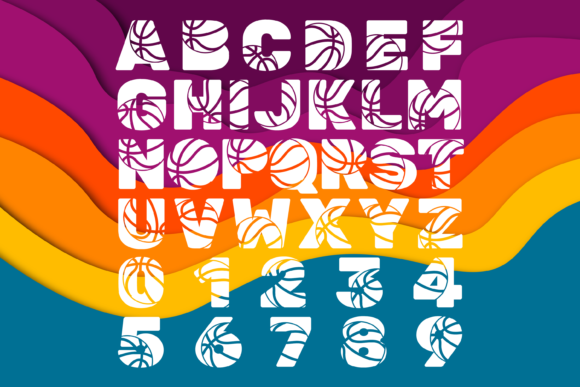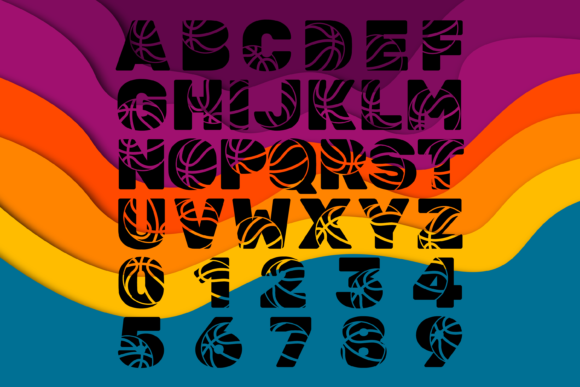
Discover the Power of Alley Oop Font: Elevate Your Sports Designs
Are you a designer or crafter looking for a font that can instantly elevate your sports-related design ideas? Look no further than the Alley Oop font. This incredibly cool font is simple yet packs a strong visual punch, making it the perfect choice for anyone looking to create eye-catching and engaging designs.
The Unique Charm of Alley Oop Font
The Alley Oop font boasts a unique charm that sets it apart from other fonts. Its bold and dynamic design makes it perfect for headlines, titles, and any other text that needs to grab attention. Whether you’re designing a logo, a poster, or a social media graphic, Alley Oop font is sure to make your creation stand out from the crowd.
Why Choose Alley Oop Font for Your Sports Designs?
So, why should you choose Alley Oop font for your sports designs? Here are just a few reasons:
- Instant Visual Impact: The Alley Oop font has a strong visual effect that instantly grabs attention. Its bold design makes it perfect for creating eye-catching headlines and titles.
- Sports-Themed Designs: The Alley Oop font is specifically designed with sports in mind. Its dynamic and energetic design makes it perfect for creating sports-themed designs, from logos and posters to social media graphics and more.
- Easy to Read: Despite its bold design, the Alley Oop font is easy to read, even at small sizes. This makes it perfect for creating designs that need to convey information quickly and clearly.
- Versatile: The Alley Oop font is versatile and can be used in a wide range of design projects, from print to digital.
How to Use Alley Oop Font in Your Designs
Using the Alley Oop font in your designs is easy. Here are a few tips to get you started:
- Pair it with Other Fonts: The Alley Oop font pairs well with other fonts, especially sans-serif fonts. Try pairing it with a clean sans-serif font for a bold and modern look.
- Use it for Headlines: The Alley Oop font is perfect for headlines and titles. Use it to create eye-catching headlines that grab attention.
- Experiment with Colors: The Alley Oop font looks great in a wide range of colors. Experiment with different colors to find the one that works best for your design.
Tips and Tricks for Working with Alley Oop Font
Here are a few tips and tricks for working with the Alley Oop font:
- Adjust the Tracking: Adjusting the tracking (the space between letters) can help to improve the overall look of the font. Experiment with different tracking settings to find the one that works best for your design.
- Use it in Combination with Images: The Alley Oop font looks great in combination with images. Try using it to add text to your images for a bold and eye-catching effect.
- Don’t Overuse it: While the Alley Oop font is bold and eye-catching, it’s best to use it sparingly. Overusing the font can make your design look cluttered and overwhelming.
In conclusion, the Alley Oop font is a powerful and versatile font that’s perfect for sports-related design ideas. Its bold and dynamic design makes it perfect for creating eye-catching headlines and titles, while its easy-to-read design makes it perfect for conveying information quickly and clearly. Whether you’re a designer or crafter, the Alley Oop font is sure to elevate your designs and help you to create engaging and effective designs.
Get Creative with Alley Oop Font
So, what are you waiting for? Get creative with the Alley Oop font today and see the difference it can make in your designs. With its unique charm, versatility, and bold design, the Alley Oop font is sure to become a favorite in your design toolkit.